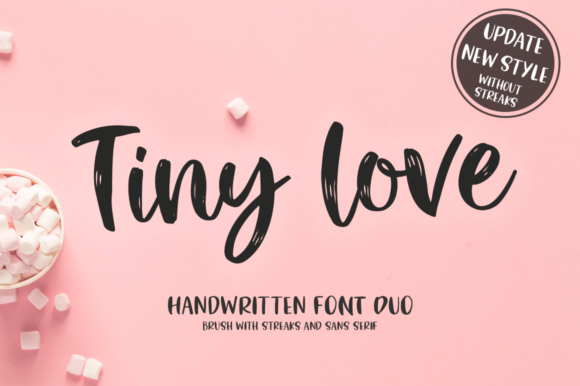
Say hello to Tiny Love Duo Font, an enchanting font duo that will ignite your creativity and make your designs dance with elegance. This extraordinary font family, meticulously crafted by the gifted Pasha Larin, presents a harmonious blend of a captivating script and a crisp sans version, inviting you to create designs that leave a lasting impression.
Journey into a world of limitless possibilities with Tiny Love Duo Font. Its graceful script font, adorned with delicate swashes and flowing lines, lends an air of sophistication and charm to your words. It's perfect for crafting logos that exude elegance, invitations that whisper romance, and book covers that beckon readers with their allure.
Complementing the script's allure is the sans serif companion, a font of remarkable clarity and versatility. Its clean lines and modern aesthetic add a touch of edginess, making it ideal for branding projects that demand attention. Use it to create logos that stand out, headlines that command notice, and website designs that captivate visitors.
But Tiny Love Duo Font's versatility doesn't end there. Its diverse range of applications extends to social media graphics that pop, product packaging that entices, and marketing materials that inspire. Unleash your creativity and let this font duo transform your designs into captivating masterpieces.
Dare to be unique, to stand out from the crowd, to make a statement with your designs. Choose Tiny Love Duo Font, the font duo that ignites passion, captivates hearts, and leaves an indelible mark on all who encounter it. Take your designs to new heights and let Tiny Love Duo Font weave its magic, transforming your visions into reality.